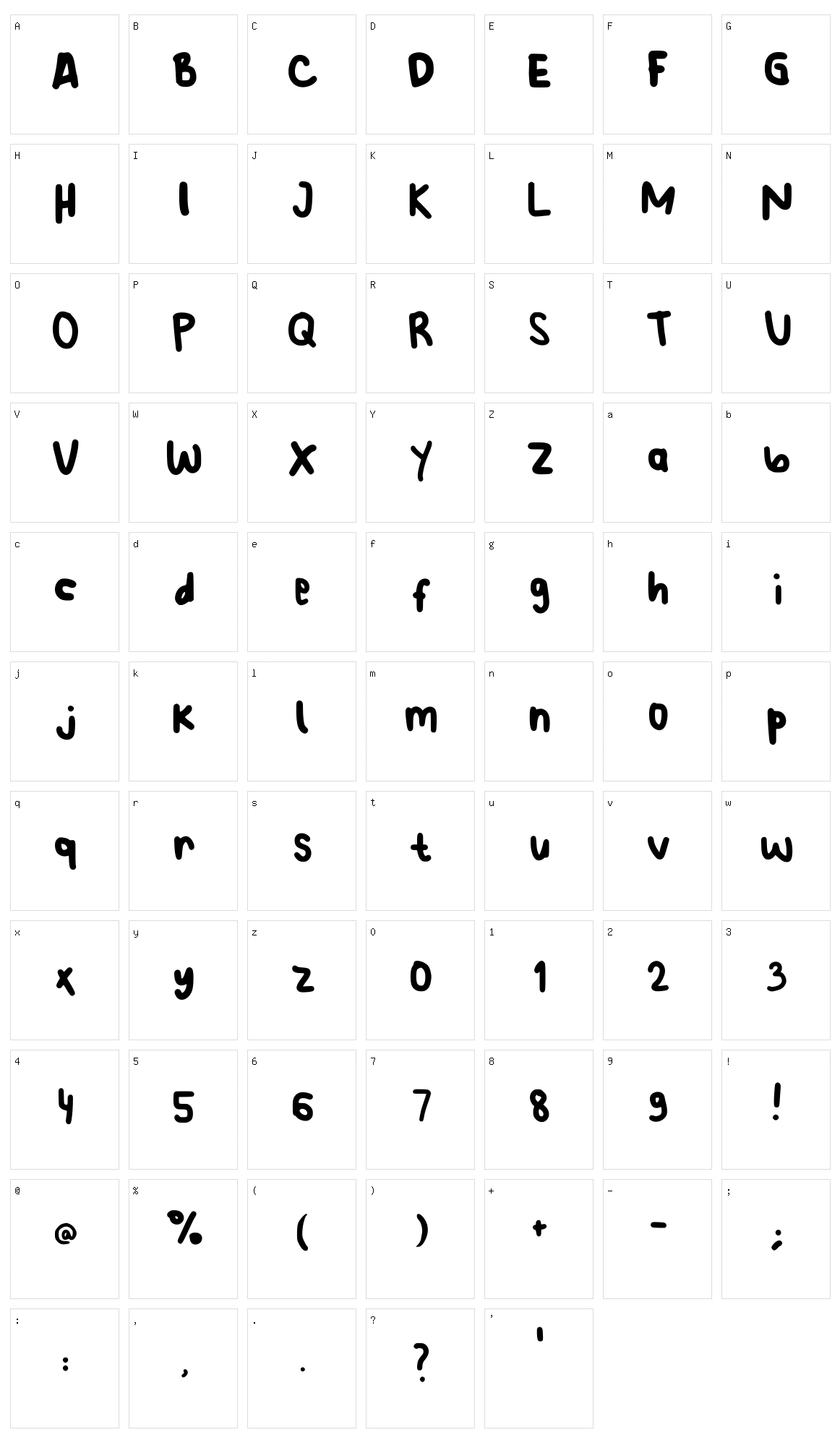
The free font The Brown Cheese is carefully designed by Raida Aufa, showcasing a thoughtful balance of creativity and usability and falls under the Script font style. When you download the ZIP file, it contains only 8.88 KB of font files, making it lightweight and quick to download. Please review the license details below to understand permitted usage and distribution rights. If license information is not available, we recommend using this font for personal projects only or contacting the author directly for commercial usage permissions.